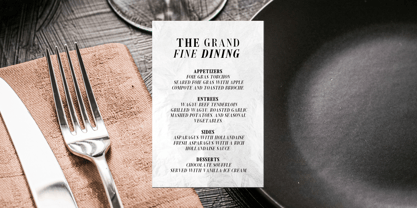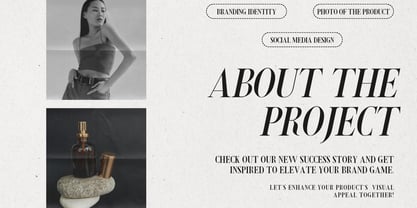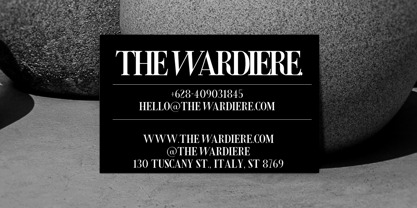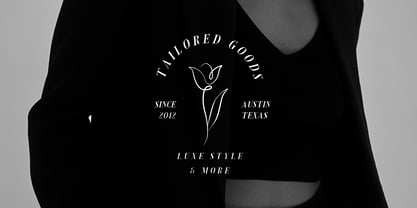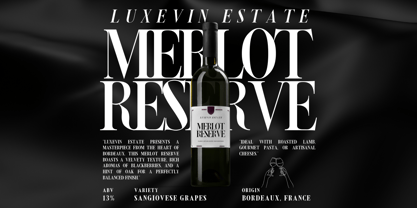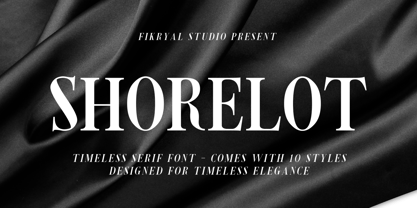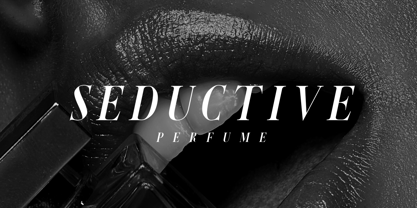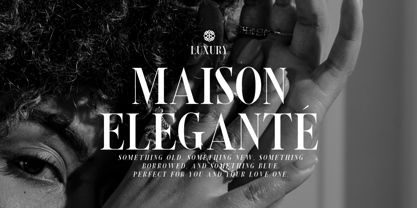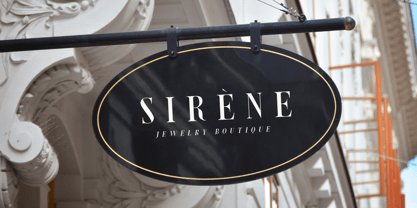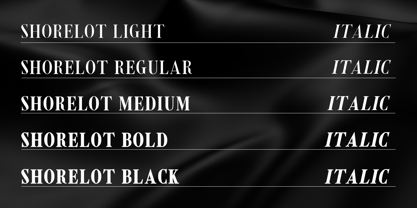
Shorelot
by Fikryal
The Shorelot Font Family was designed by Muhammad Fikry and published by Fikryal. Shorelot contains 10 styles and family package options. More about this family
Shorelot is a sophisticated serif font meticulously designed to bring professionalism and refinement to your projects. As an all-caps typeface, Shorelot seamlessly combines classic elegance with modern adaptability, making it an essential tool for professionals aiming to achieve impactful results.
Key Features of Shorelot :
• 10 Versatile Styles: From Light to Black, including Italics, offering unmatched flexibility for any creative endeavor.
• Luxury Design Aesthetic: Ideal for premium branding, editorial layouts, and upscale packaging.
• Enduring Appeal: A timeless design that ensures your projects remain relevant and distinguished.
Whether you are a brand strategist, an editorial designer, or a creative professional, Shorelot empowers your work with unparalleled sophistication and versatility, ensuring lasting impressions every time.